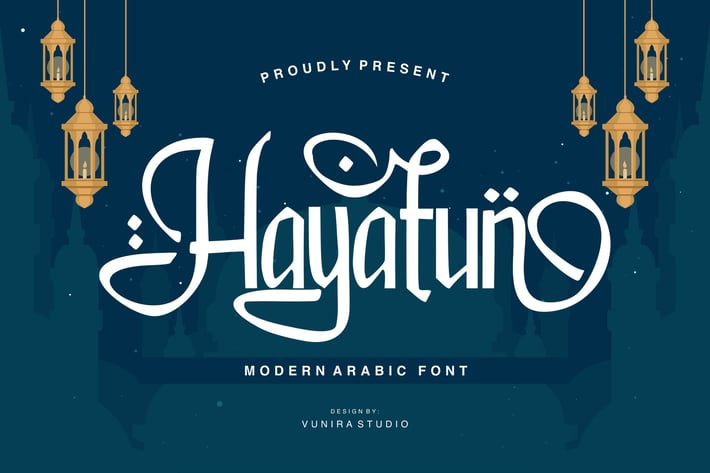
Hayatun - Modern Arabic Font
Hayatun - Modern Arabic Font with a calligraphy style, So beautiful on invitation like greeting cards, branding materials, business cards, quotes, posters, and more!